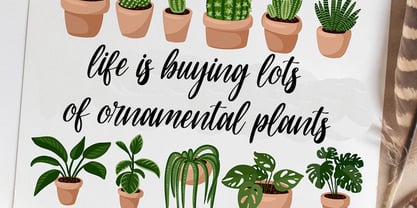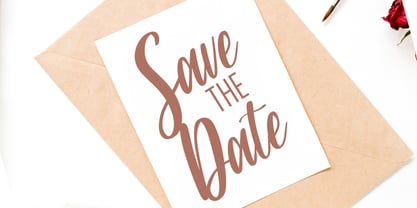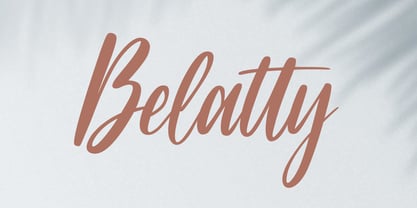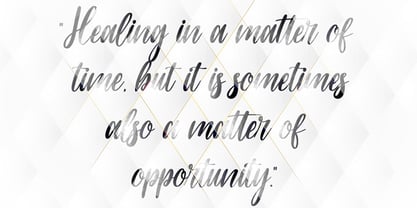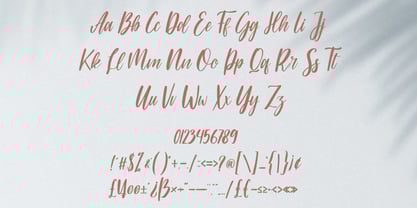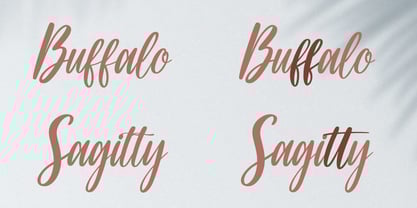
Belatty
by Skiiller Studio
The Belatty Font Family was designed by Irfan Mahmudin and published by Skiiller Studio. Belatty contains 1 styles.
Belatty is an elegant handwritten script font with smooth strokes, flowing curves, and a natural calligraphy style. Designed for branding, wedding invitations, logos, quotes, packaging, and social media designs, it delivers a warm, personal, and sophisticated feel. Its expressive letterforms and graceful rhythm create a timeless look that enhances both modern and classic creative projects.